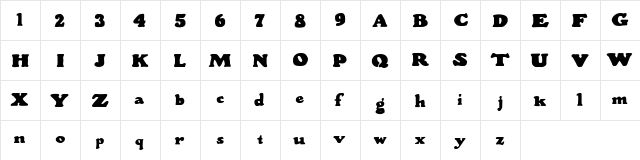
Wood Stevens Bold Regular
Design Context for Wood Stevens Bold Typeface
Wood Stevens Bold echoes the hand-painted signage and woodblock typography of the American frontier, with a warm, rugged personality. Its bold stroke weight gives it real presence on the page.
Perfect for barbecue restaurants, country music branding, vintage poster design, and rustic packaging.
Font Pairing: Combine Wood Stevens Bold with a simple slab or neutral sans — period-accurate companions reinforce the vintage feel without competing for attention.
Pro Tip: Pair Wood Stevens Bold with aged textures or distressed backgrounds to amplify its vintage personality.